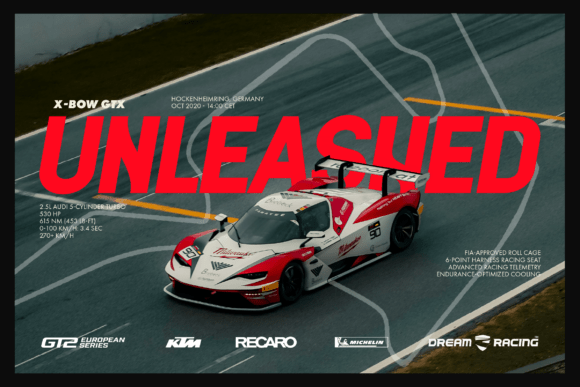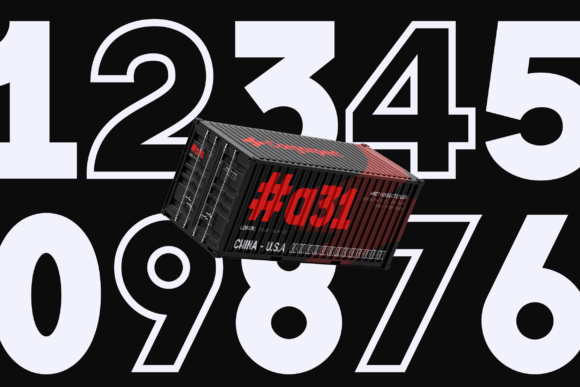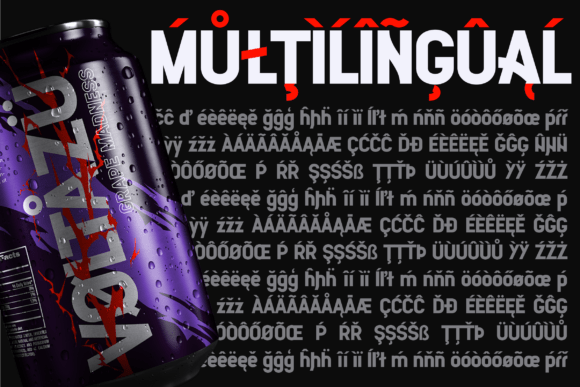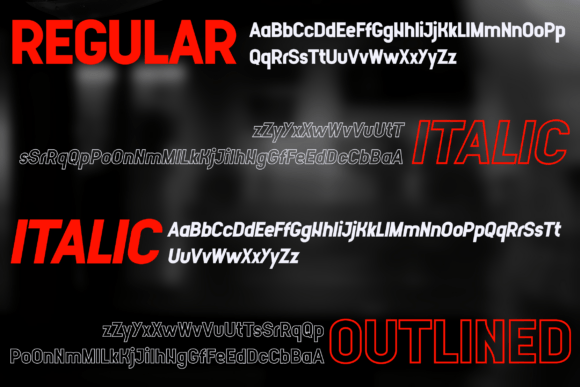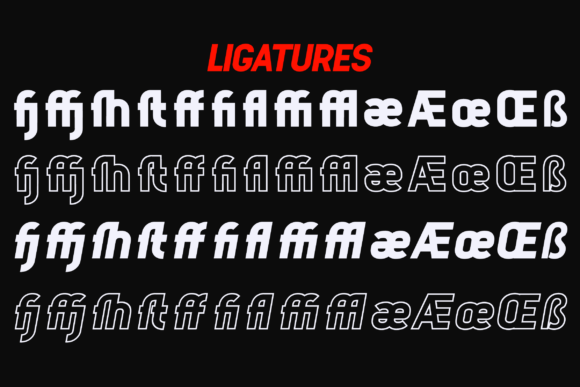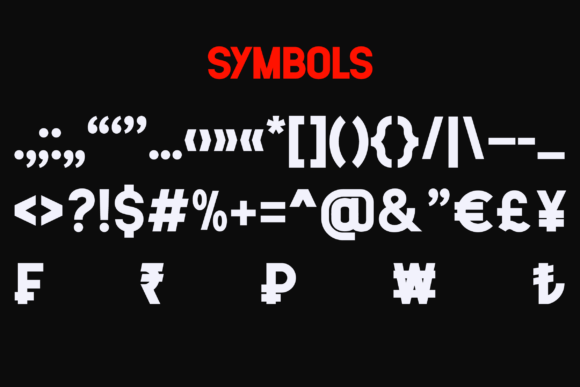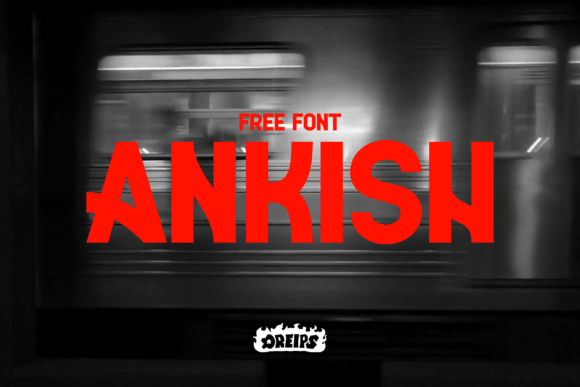
Introducing Ankish Font: The Bold, Futuristic Sans-Serif for Creative Minds
In the world of typography, Ankish Font has emerged as a game-changer, trusted by creative agencies and independent designers worldwide. This bold, futuristic sans-serif font is making waves with its unique blend of brutalist geometry and subtle curves, delivering impact without losing approachability. In this article, we’ll dive into the world of Ankish Font, exploring its features, applications, and the design philosophy behind this innovative typeface.
The Design Philosophy of Ankish Font
Ankish Font is the brainchild of designers who sought to create a typeface that embodies confidence and precision. With its brutalist geometry softened by subtle curves, Ankish strikes the perfect balance between modernity and approachability. This font is designed to thrive in a variety of applications, from film titles and urban posters to editorial headlines, industrial environments, and forward-thinking brand systems.
Key Features of Ankish Font
- Bold and Futuristic: Ankish Font boasts a bold, futuristic aesthetic that’s perfect for designers who want to make a statement.
- Brutalist Geometry: The font’s brutalist geometry provides a solid foundation, while subtle curves add a touch of sophistication.
- Versatile: Ankish Font is designed to be versatile, working seamlessly in a range of applications, from film and posters to editorial and branding.
- High-Impact: With its bold design, Ankish Font delivers high-impact results, grabbing the attention of audiences and leaving a lasting impression.
Applications of Ankish Font
Ankish Font is a versatile typeface that can be used in a variety of contexts, including:
- Film Titles: Ankish Font’s bold, futuristic design makes it perfect for film titles, adding a touch of sophistication and glamour to movie posters and trailers.
- Urban Posters: The font’s brutalist geometry and subtle curves make it an excellent choice for urban posters, providing a bold and eye-catching aesthetic.
- Editorial Headlines: Ankish Font’s high-impact design makes it ideal for editorial headlines, adding a touch of confidence and precision to articles and publications.
- Industrial Environments: The font’s bold, futuristic design makes it perfect for industrial environments, such as manufacturing and technology brands.
- Forward-Thinking Brand Systems: Ankish Font is an excellent choice for brands that want to convey a sense of innovation and forward thinking.
Why Choose Ankish Font?
With so many fonts available, why choose Ankish Font? Here are just a few reasons:
- Unique Design: Ankish Font’s unique blend of brutalist geometry and subtle curves sets it apart from other fonts.
- Versatility: The font’s versatility makes it an excellent choice for a range of applications, from film and posters to editorial and branding.
- High-Impact: Ankish Font’s bold design delivers high-impact results, grabbing the attention of audiences and leaving a lasting impression.
- Confidence and Precision: The font’s design embodies confidence and precision, making it perfect for designers who want their work to speak with authority.
In conclusion, Ankish Font is a bold, futuristic sans-serif typeface that’s making waves in the design world. With its unique blend of brutalist geometry and subtle curves, Ankish delivers impact without losing approachability. Whether you’re a creative agency or an independent designer, Ankish Font is an excellent choice for anyone looking to add a touch of confidence and precision to their work.